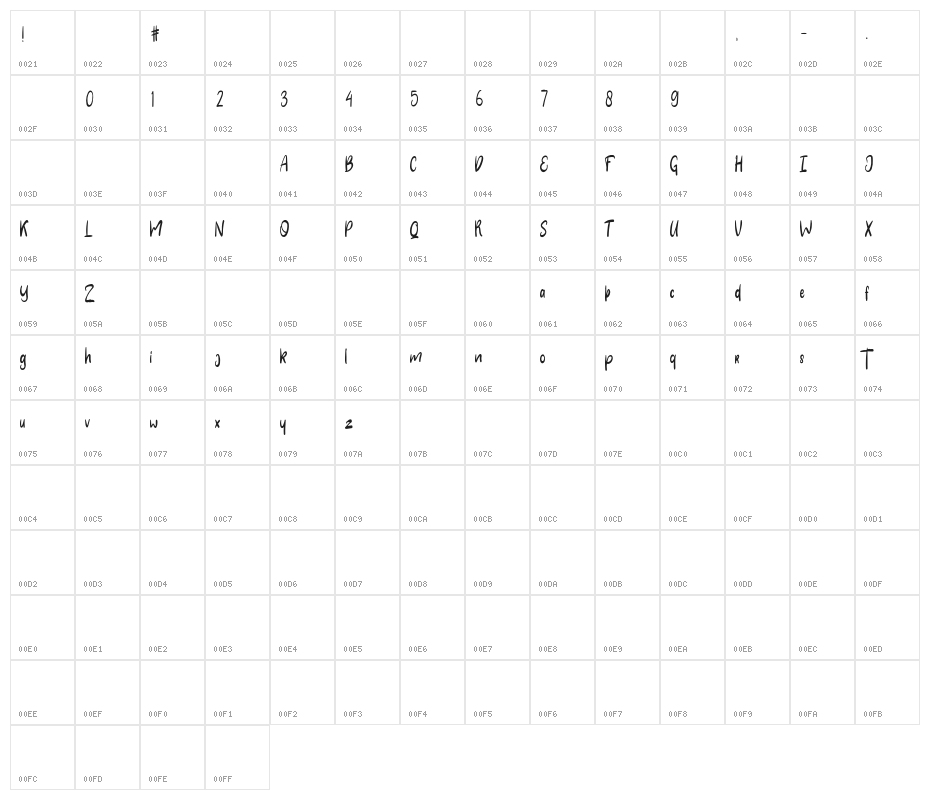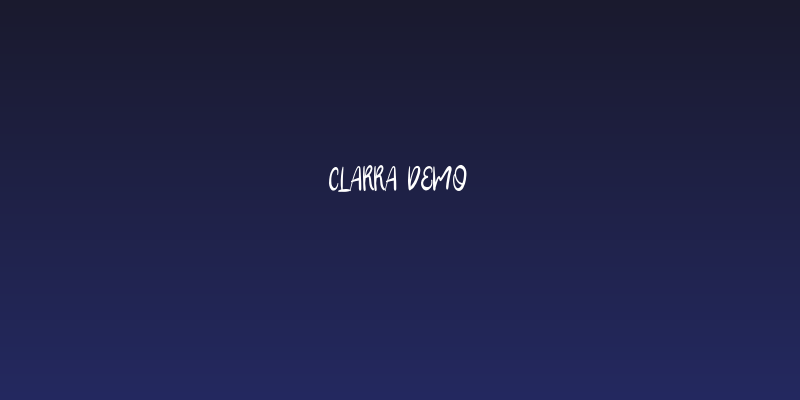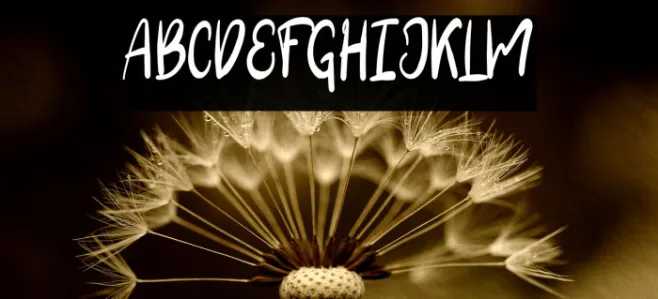
CLARRA Demo Font
CLARRA Demo Description
This font features a playful and casual handwritten style, characterized by its smooth, flowing lines and slightly irregular shapes that give it a personal touch. The uppercase letters are bold and dynamic, with a slight slant that adds a sense of movement. The lowercase letters maintain a consistent style, with rounded edges and a friendly appearance. Numbers are clear and easy to read, matching the overall aesthetic. Special characters are well-integrated, maintaining the same playful and informal style. This font is perfect for projects that require a personal, approachable feel.
| Use Case | Logos, Headlines, Informal Text |
| Proposed Projects | Ideal for greeting cards, invitations, personal branding, and social media graphics. |